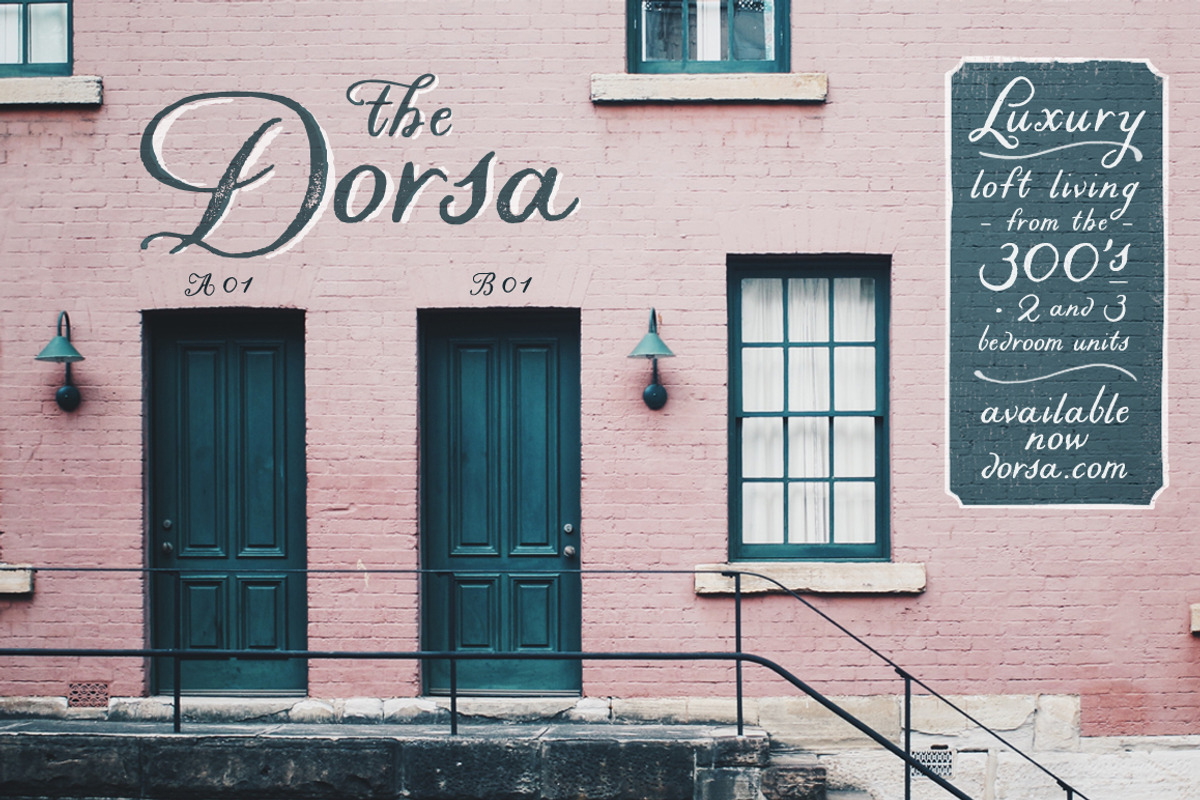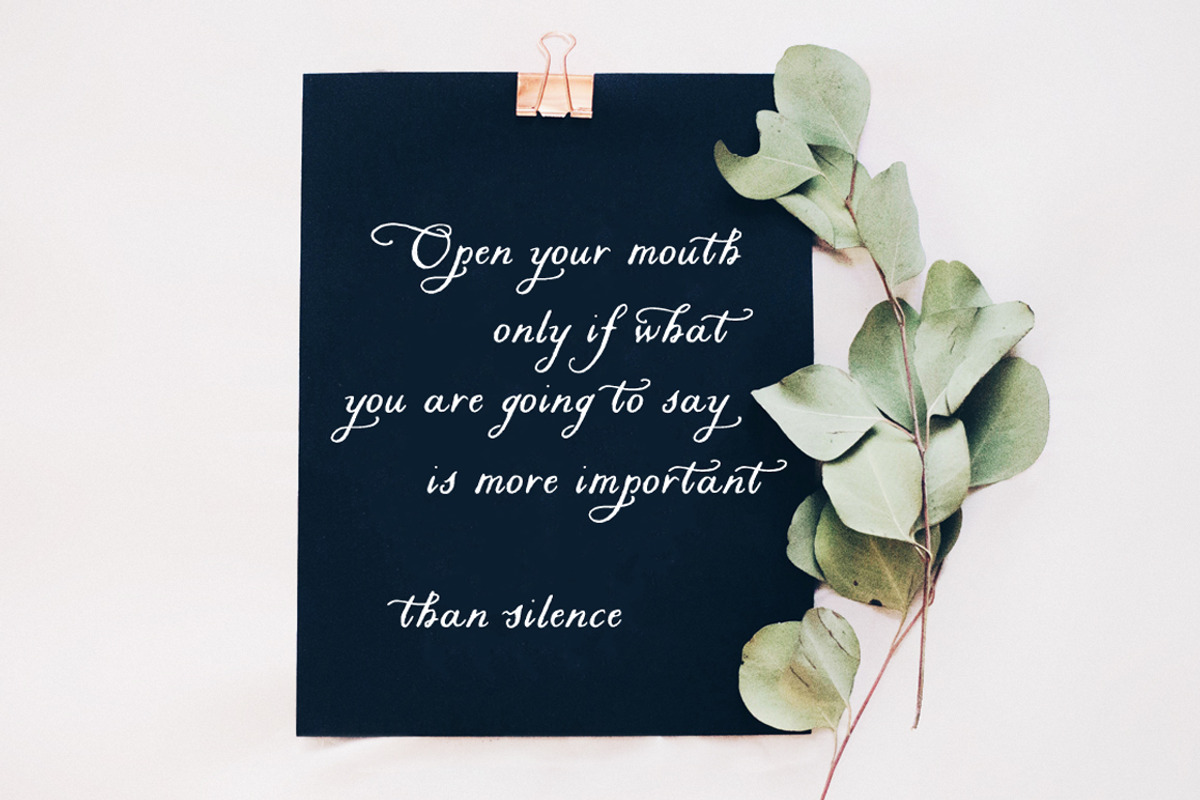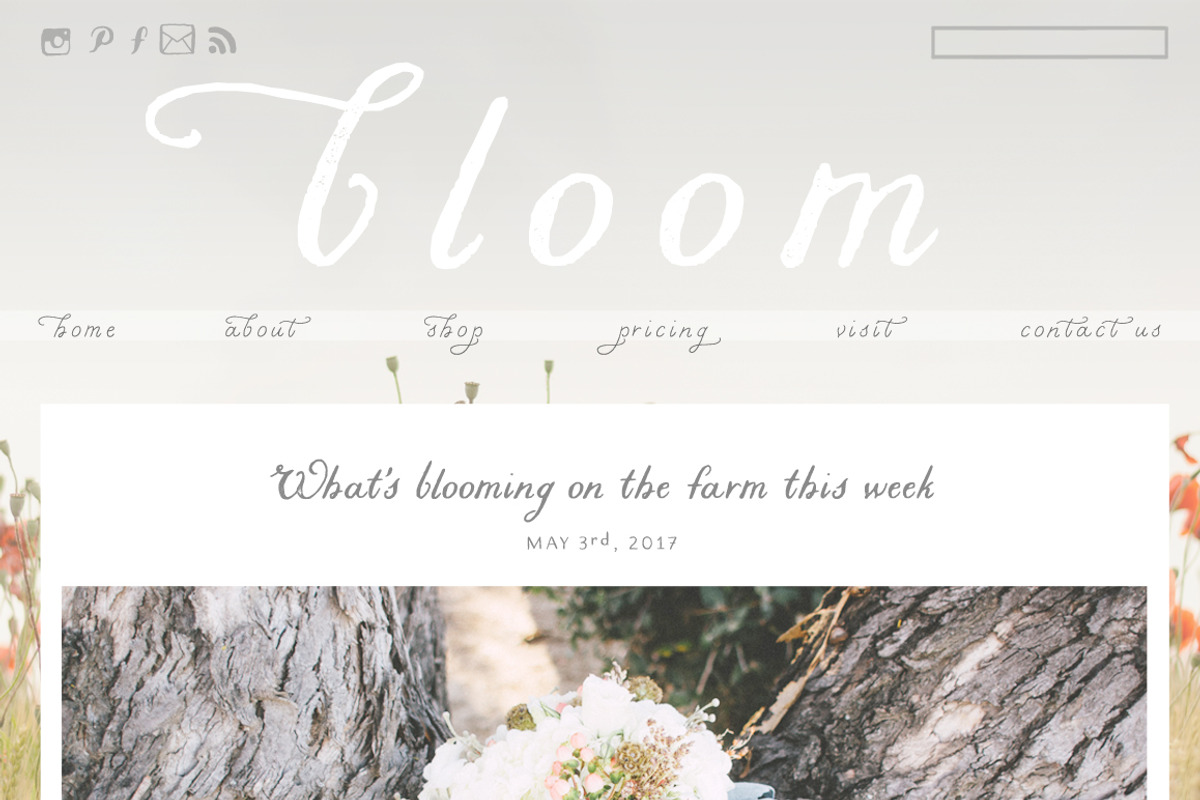
Liesel Brush Family
What happens when historical calligraphy and modern lettering kiss? Liesel!
This hand drawn family is made for layering! Experiment with textures, overlays and blending modes to create realistic water colored text.
• Opentype features include: contextual alternates, stylistic alternates, swashes, true fractions, and old style numerals.